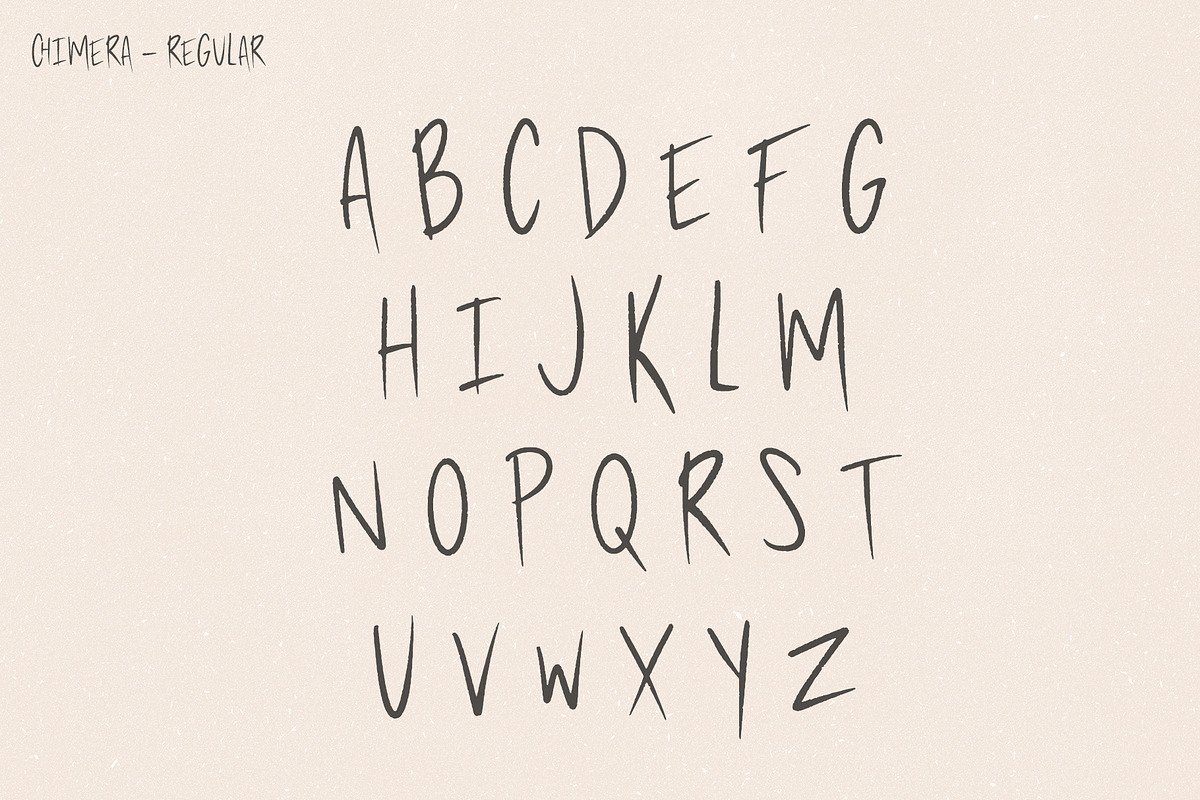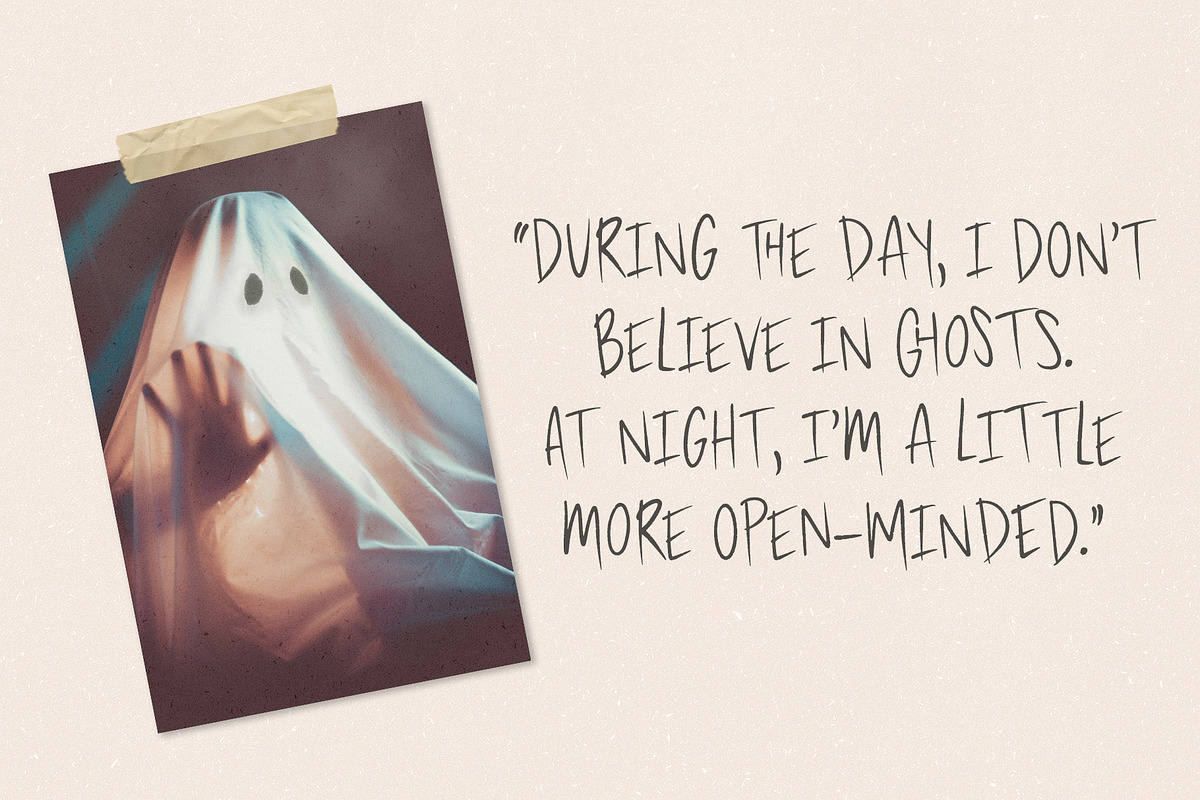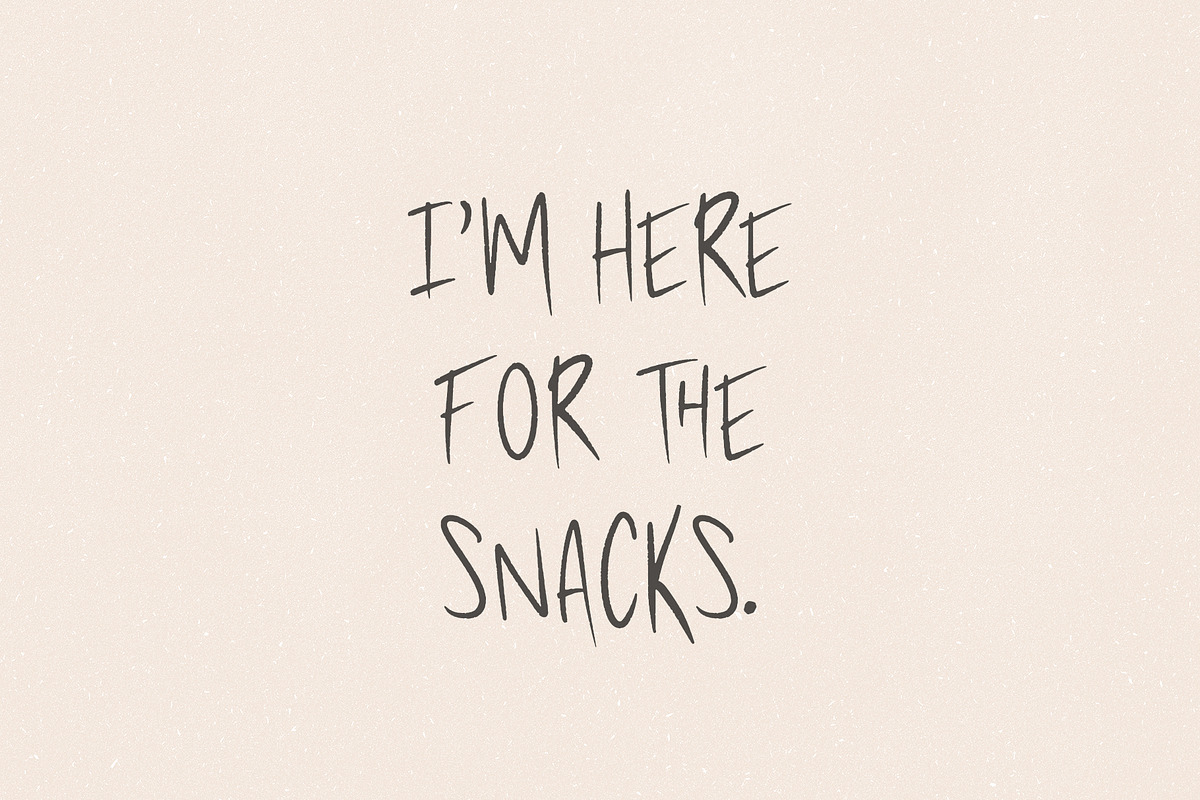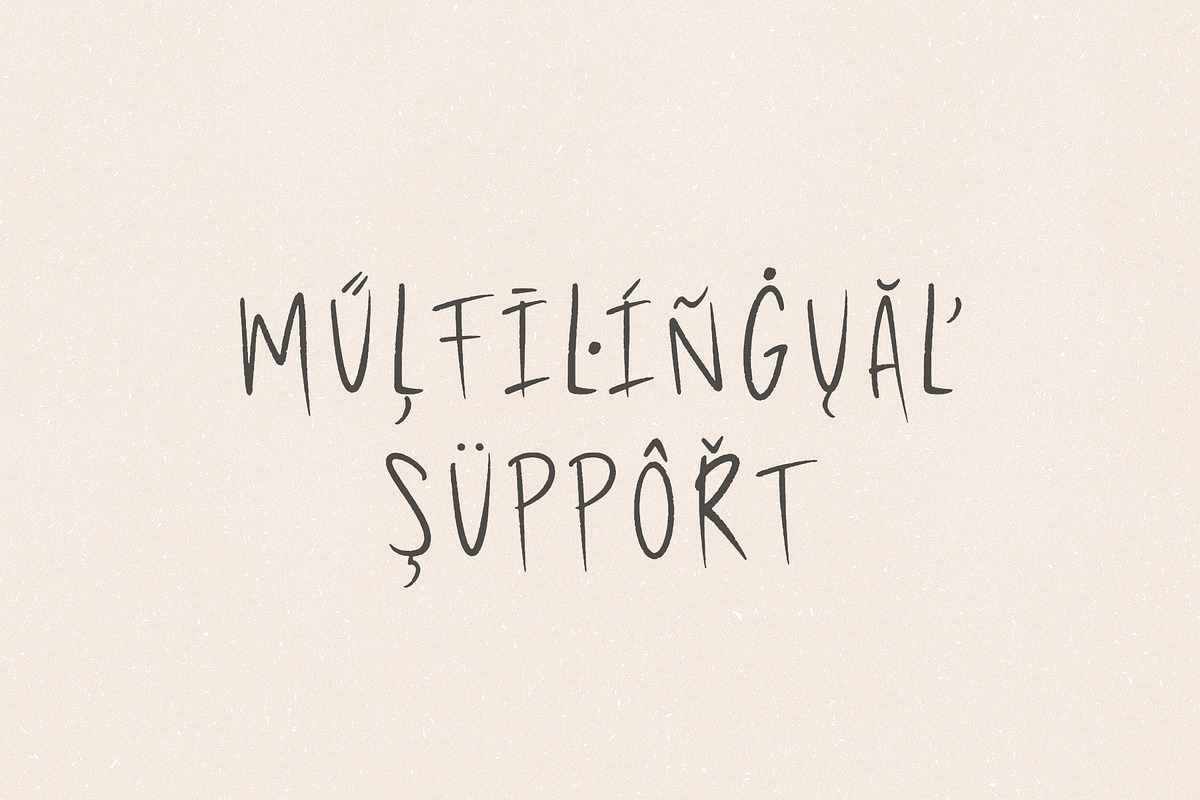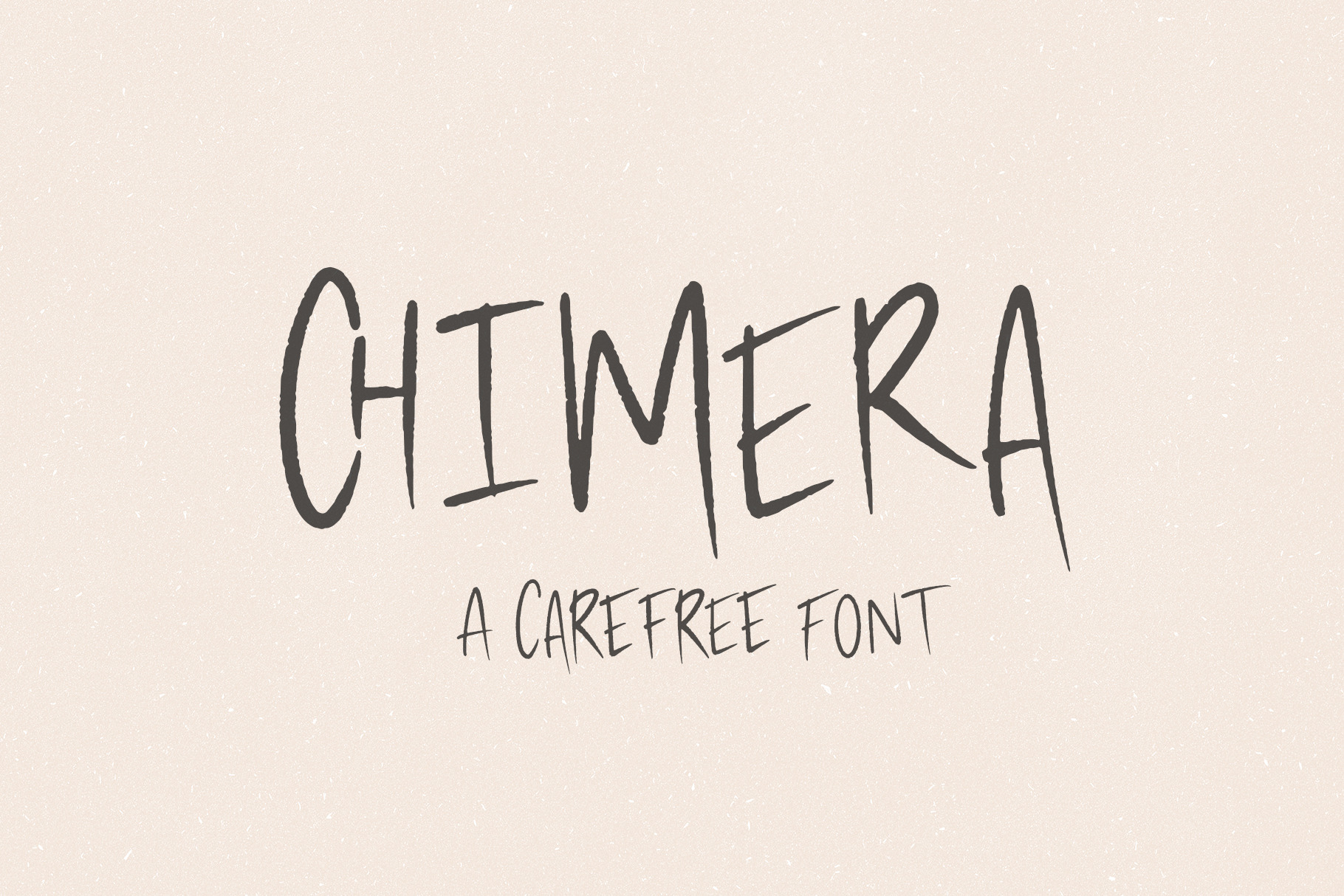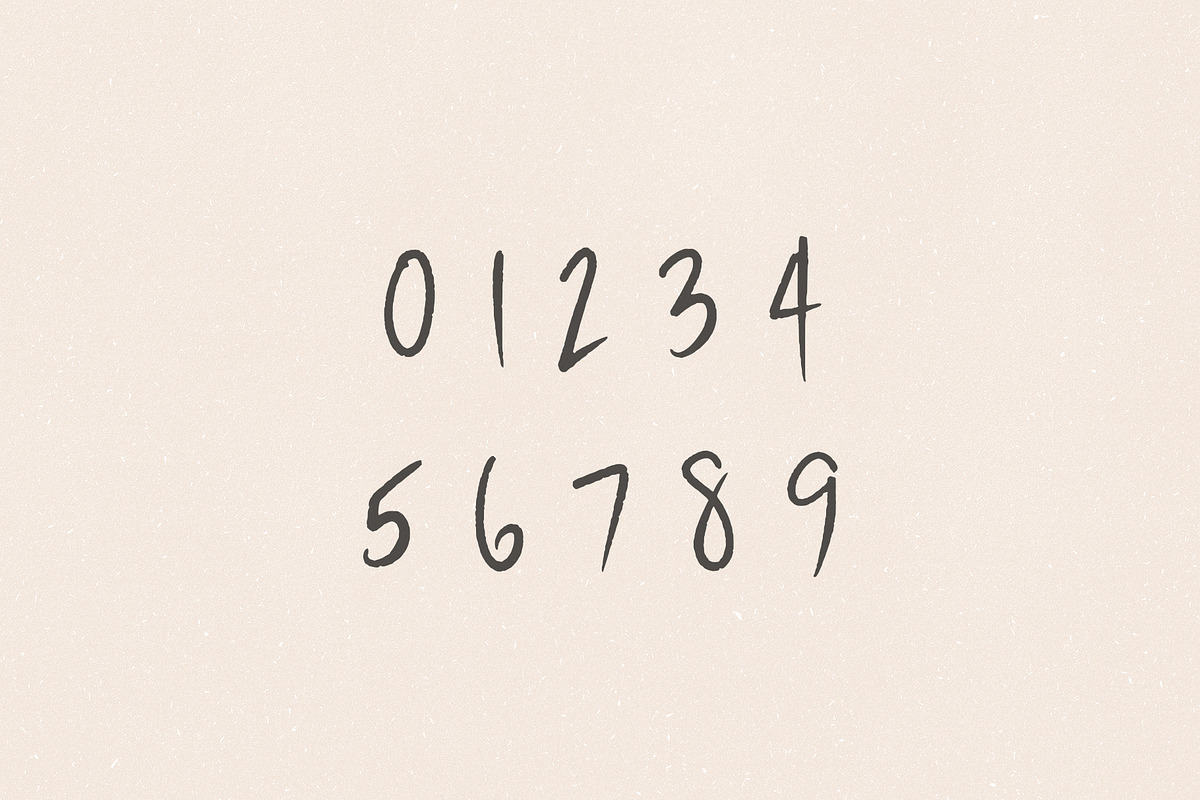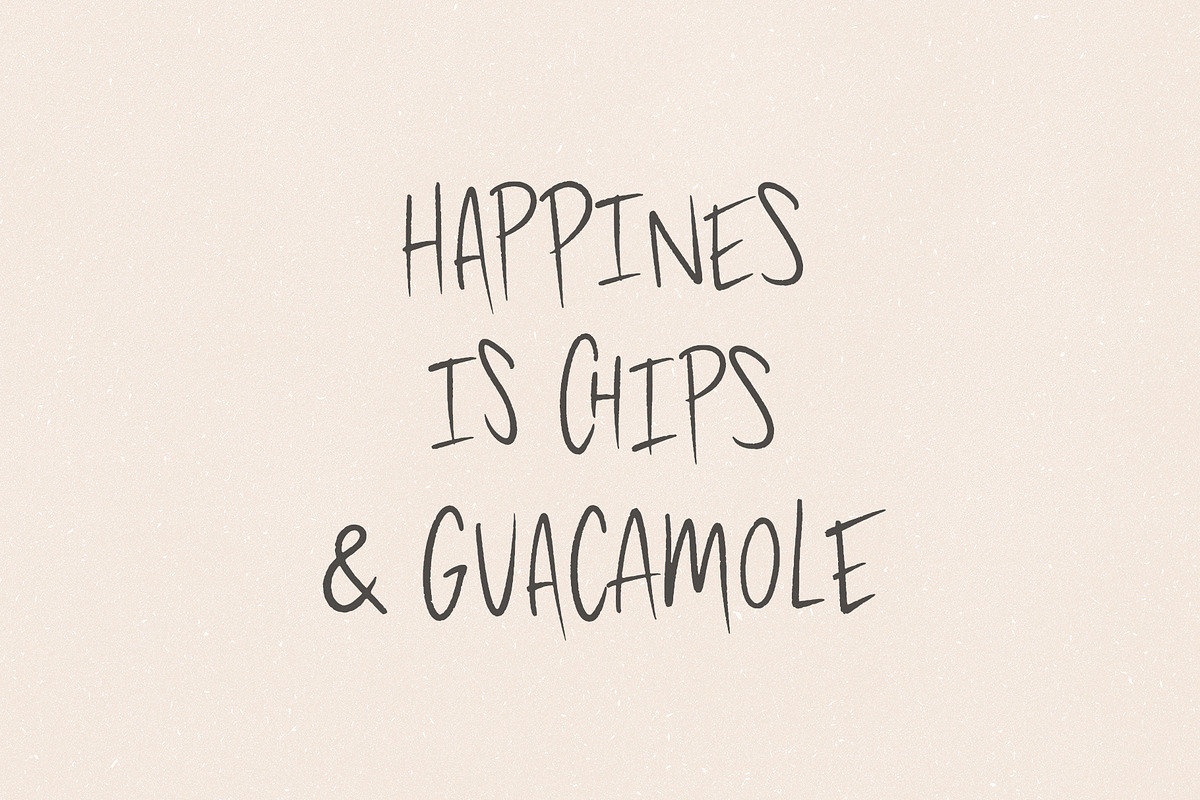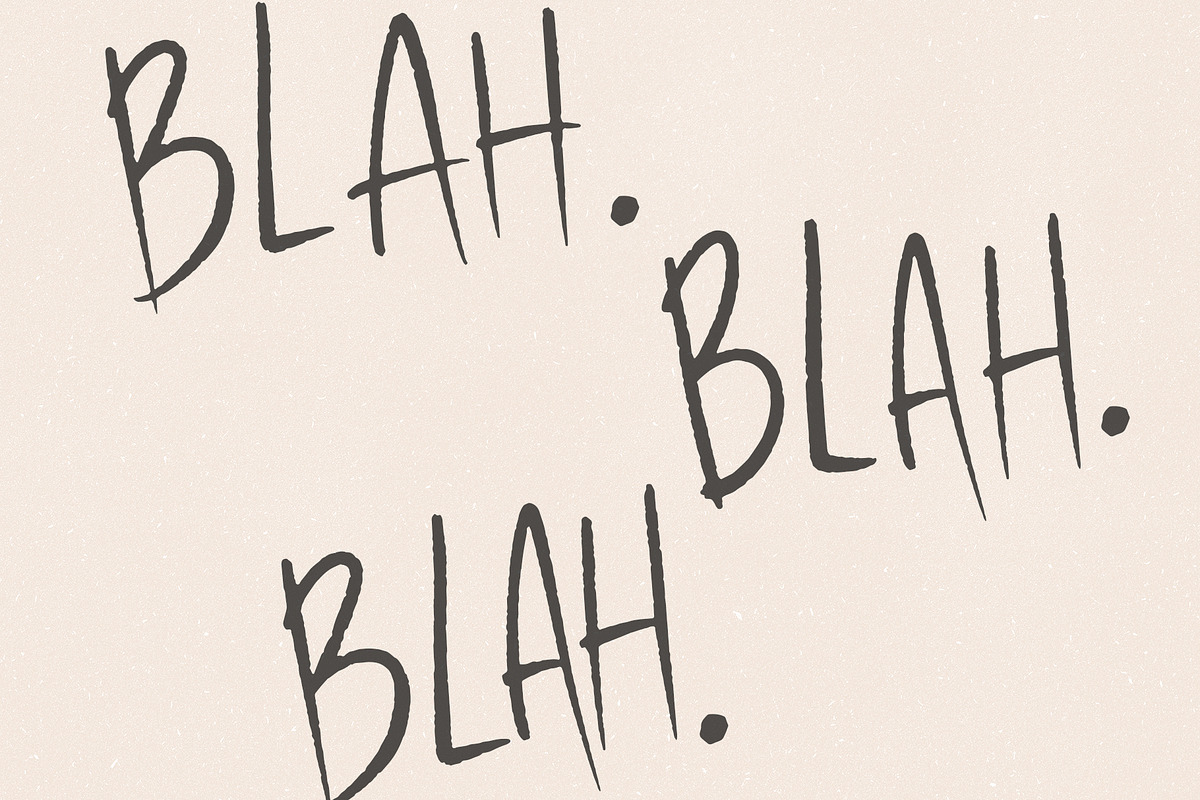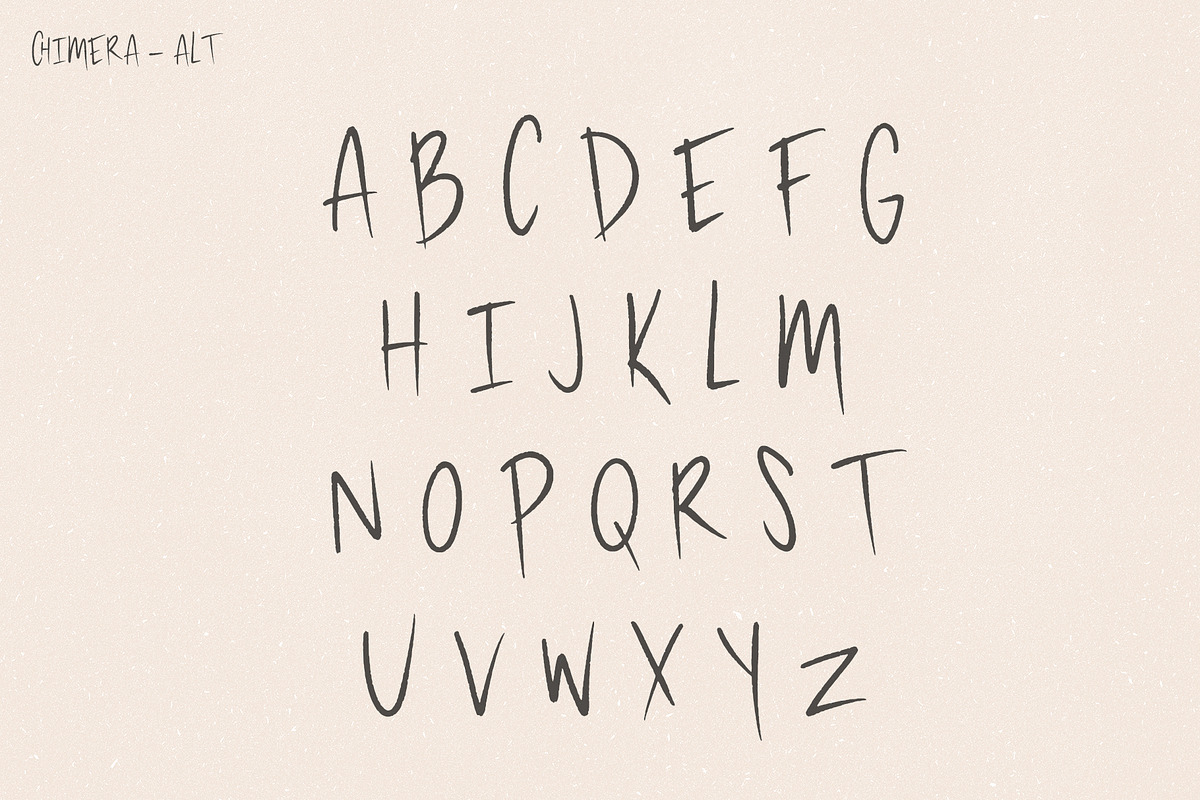
Chimera // A Carefree Font
Chimera is a textured and carefree, chicken-scratch looking font. There is both a regular version and an alternate version, so, you can achieve that perfectly imperfect handwritten look. Perfect for social media images, creating quotes, or just adding a handwritten touch to your projects.
- 2 sets of uppercase letters
- A few ligatures
- Accented characters for the international designer